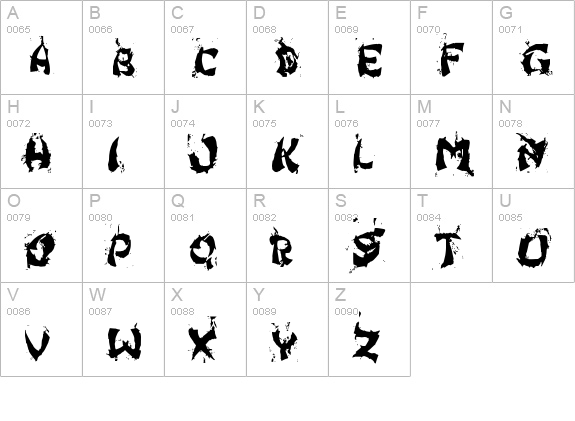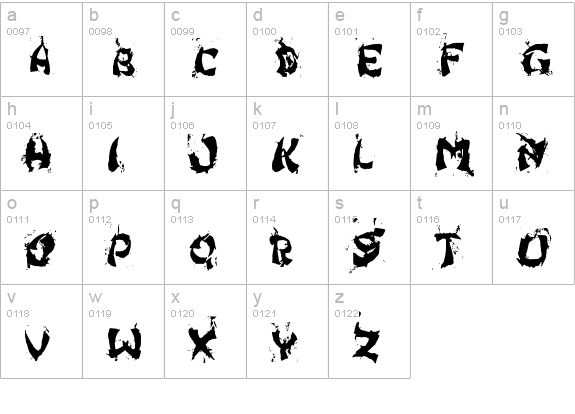
Hong Kong Fist Fuck Font Details
Hong Kong Fist Fuck font is a bold and edgy typeface that exudes power and strength. Its sharp angles and heavy strokes give it a dynamic and impactful look, making it perfect for projects that demand attention. This font is inspired by the vibrant energy of Hong Kong and its bustling streets, reflecting the city's fusion of tradition and modernity. What sets Hong Kong Fist Fuck font apart is its unique design that combines traditional Chinese calligraphy elements with a modern twist. The result is a visually striking font that commands the viewer's gaze and leaves a lasting impression. Best of all, Hong Kong Fist Fuck font is completely free to download at FontsMarket.com. Now you can add this cutting-edge typeface to your design arsenal without breaking the bank. Whether you're working on posters, branding, or editorial designs, Hong Kong Fist Fuck font will bring a bold and unforgettable touch to your projects. Download it today and unleash the power of this stunning font in your creations.